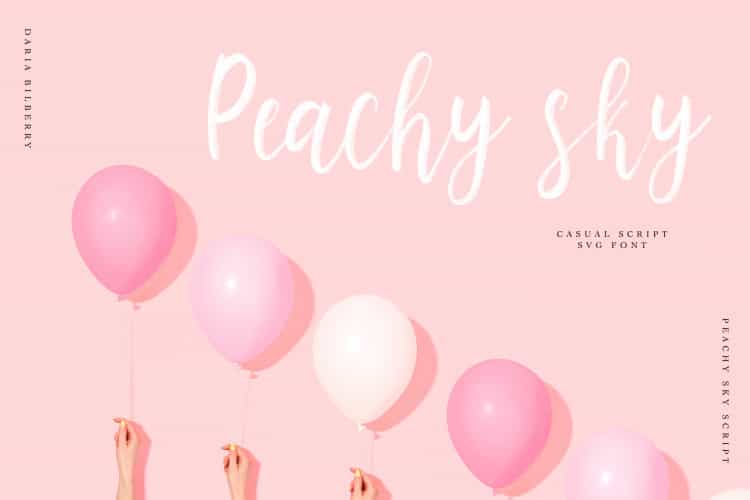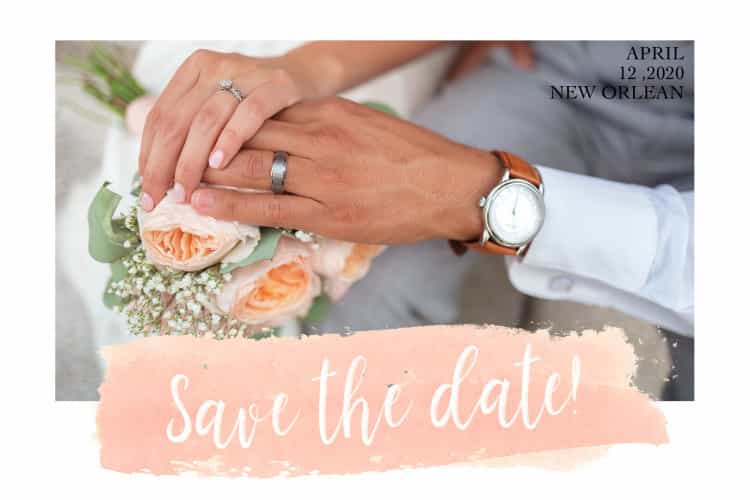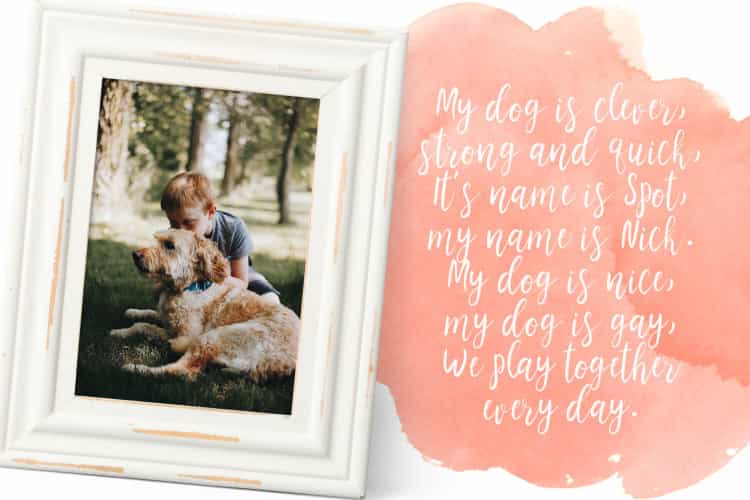
Discover Peachy Sky SVG Script Font, part of the Brush collection—a versatile and unique font perfect for adding a personal touch to your projects. Download it for free and enjoy crafting designs with style, from invitations to social media posts. This font is available exclusively for personal use, giving you the freedom to create without limits. Unlock your creativity with Peachy Sky SVG Script Font today!
Peachy sky is a casual script font with expressive style that adds a touch to your design work. Created by Bilberry Create, great for creating a custom look in it. They’re an OpenType SVG font so you can get them to work beautifully with Photoshop CC 2017 and Illustrator CC 2018 as well as new versions such as those. As well the original font is supported without need for any special software to operate this kind of font. The font was initially hand drawn in charcoal on paper, and later transformed for use in typographic designs.